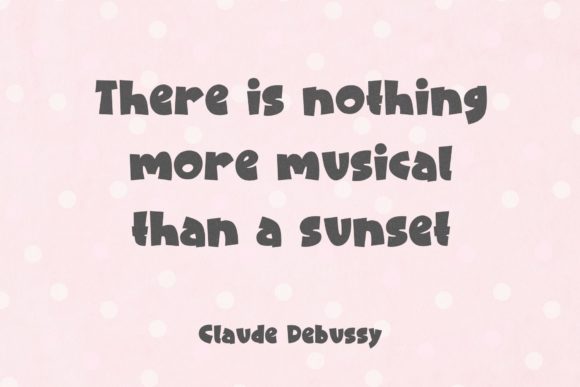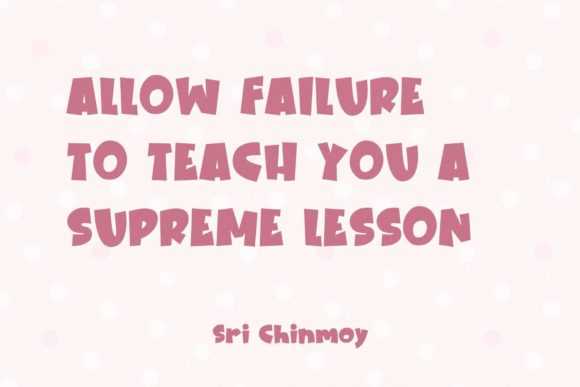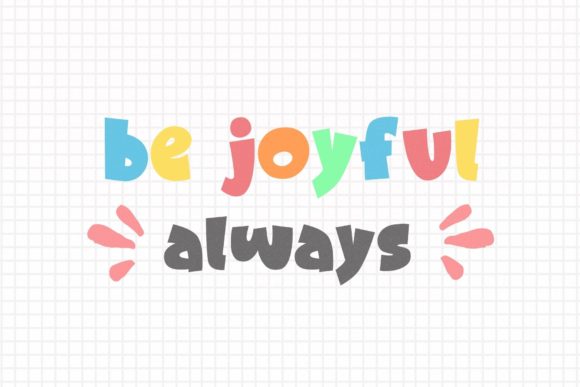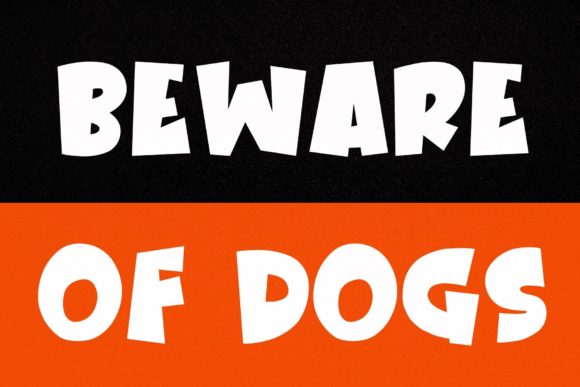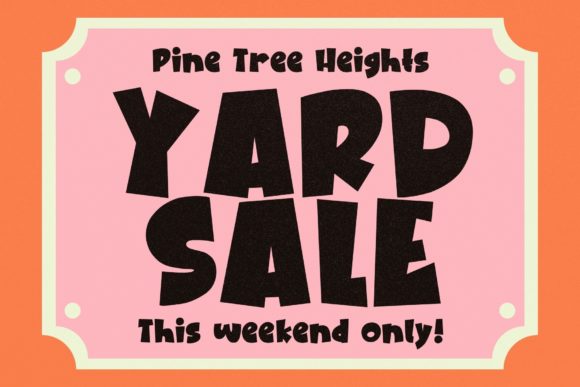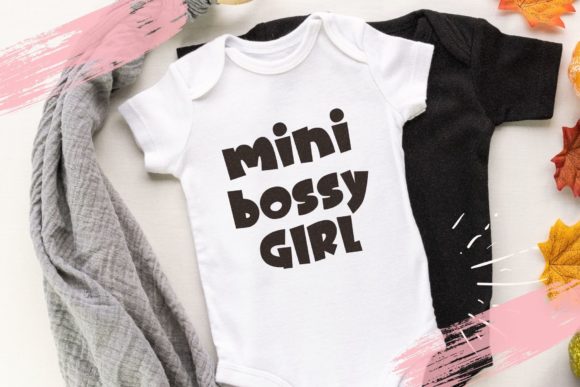
Introduction to Magic Farmland Font
Magic Farmland is a fun, cartoon like and chunky lettered display font.
This font is perfect for children themed designs, especially when combined with bright colors .
Key Features of Magic Farmland Font